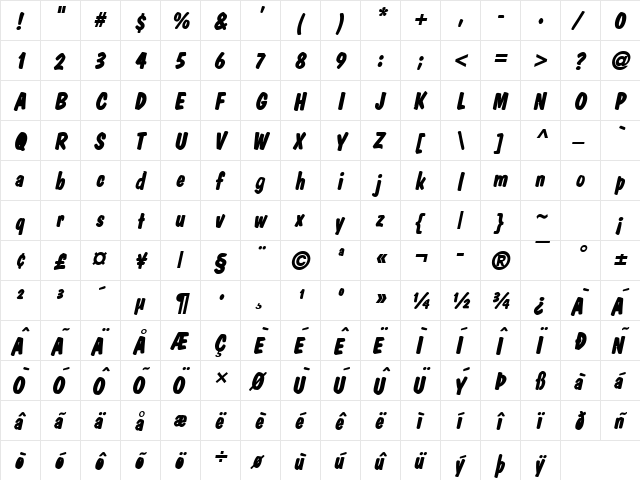
Danto BoldItalic
Design Context for Danto Typeface
Danto is a composed and adaptable typeface that performs quietly and consistently across a wide range of design contexts. The dynamic lean of this cut emphasises speed and emphasis in any layout. Its bold stroke weight gives it real presence on the page.
Pro Tip: Try Danto for annotation and caption copy alongside an upright companion — the contrast in angle creates a dynamic but ordered typographic system.